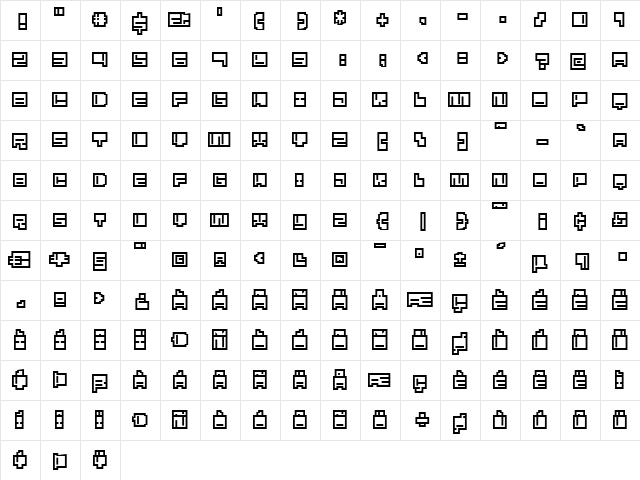
Mezcal-Outline-SC Regular
Design Context for Mezcal-Outline-SC Typeface
Mezcal-Outline-SC brings ornamental detail and strong personality to headlines and identities, where visual impact matters more than quiet functionality.
Font Pairing: Pair with a clean neutral sans-serif for body copy to let Mezcal-Outline-SC's character lead without overwhelming the composition.
Pro Tip: Use Mezcal-Outline-SC exclusively at display sizes — it was designed to be seen, not read at length. Let a neutral companion handle body copy.